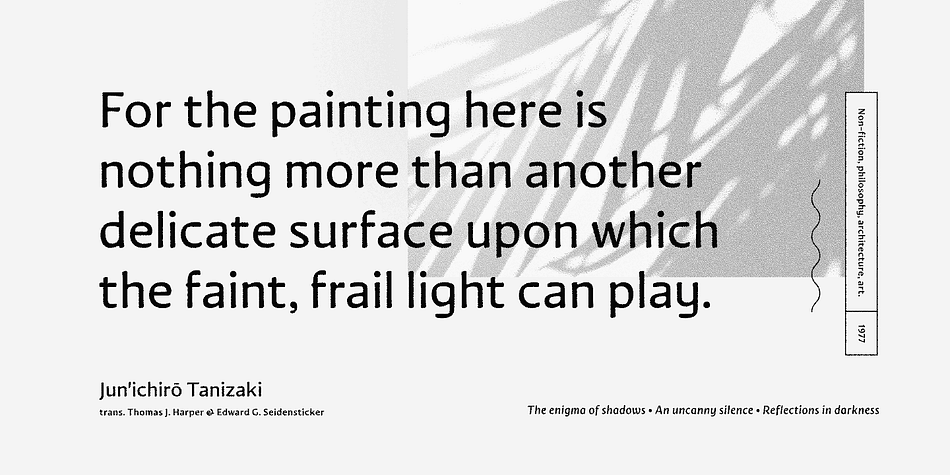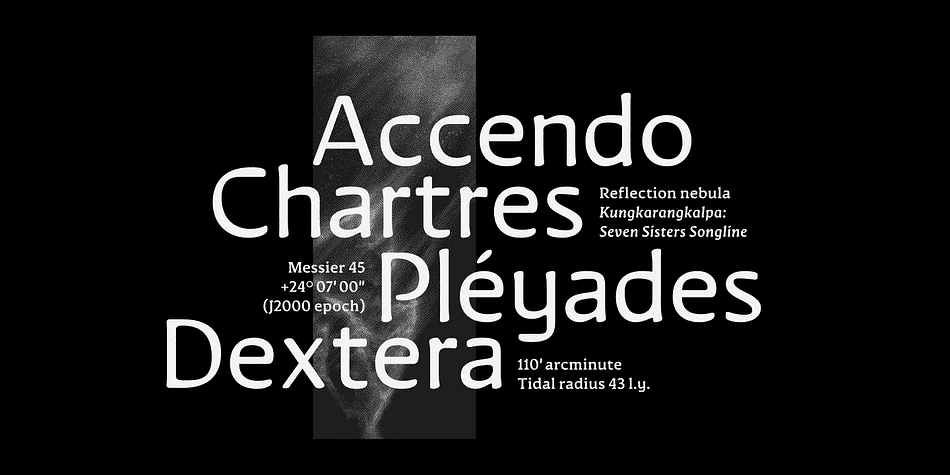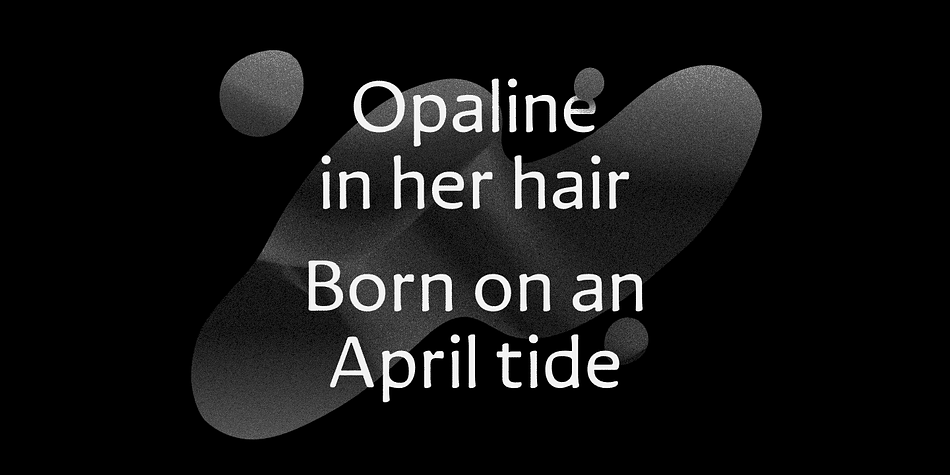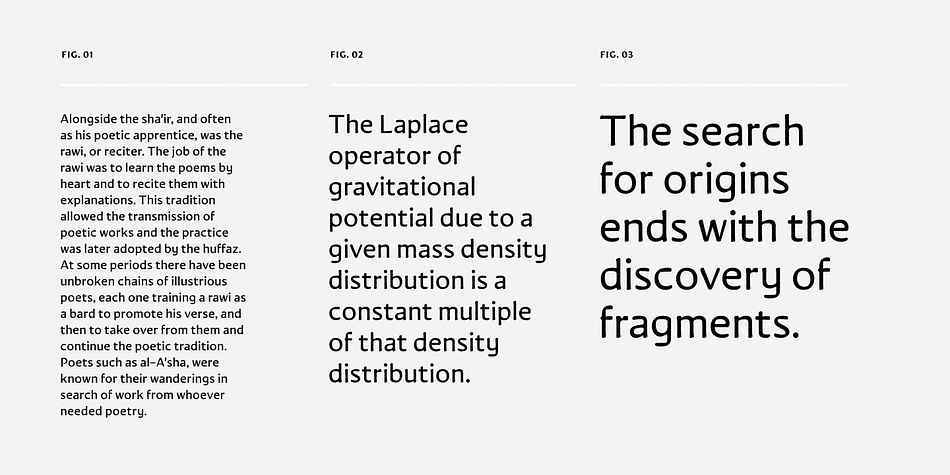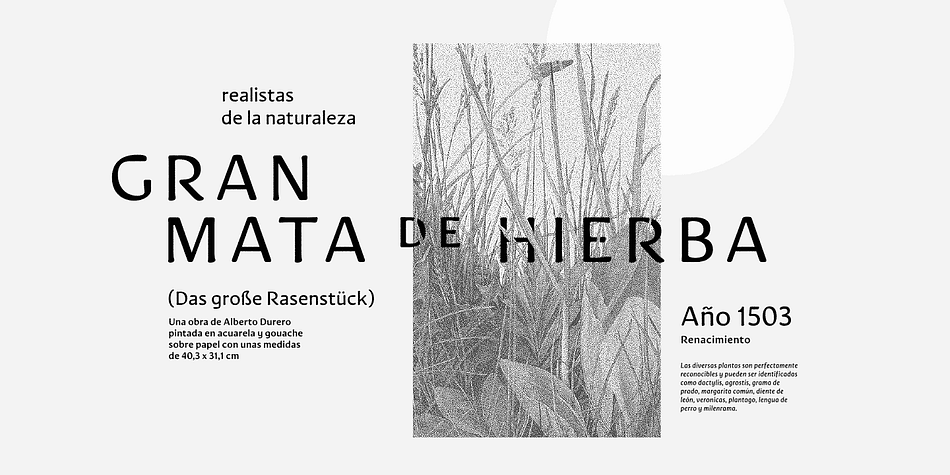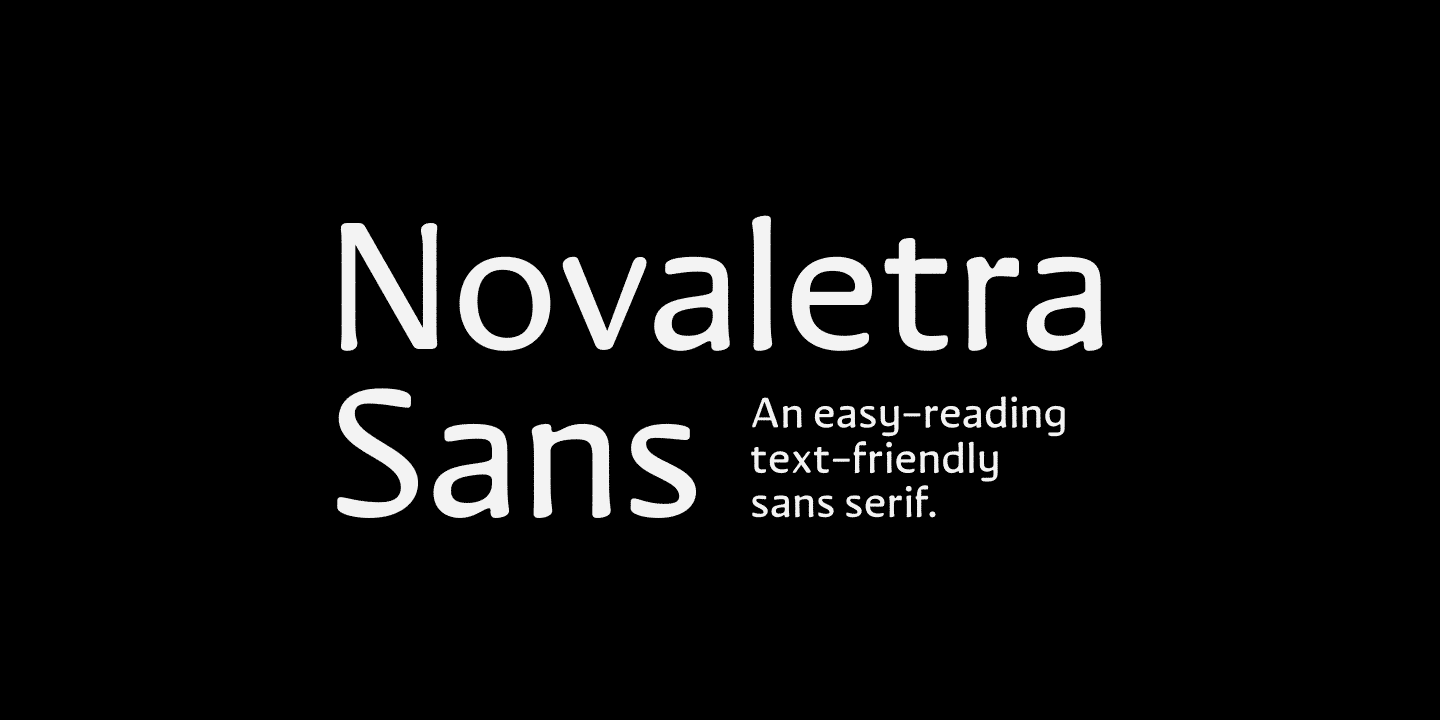
Novaletra Sans CF
Designed by Connary Fagen, Novaletra Sans CF is a sans serif font family. This typeface has fourteen styles and was published by Connary Fagen Type Design.
Smooth brushstrokes inform the construction of Novaletra Sans. As Novaletra Serif’s sister typeface, Novaletra Sans shares its easy readability and excellent performance in a humanist design. Subtle flares and low stroke contrast provide warmth uncommon in sans-serif font families. Perfect for longform texts, books, articles, newspapers, and more. Includes Latin and Cyrillic glyphs in upright and italic sets.